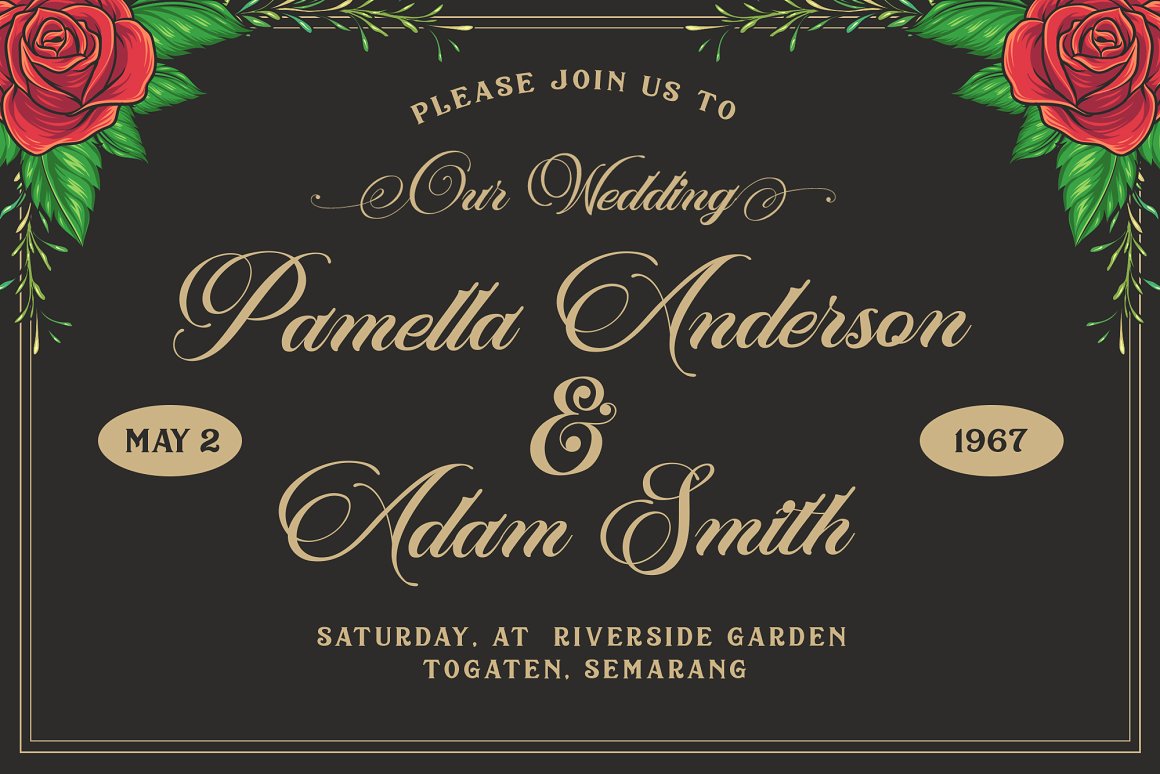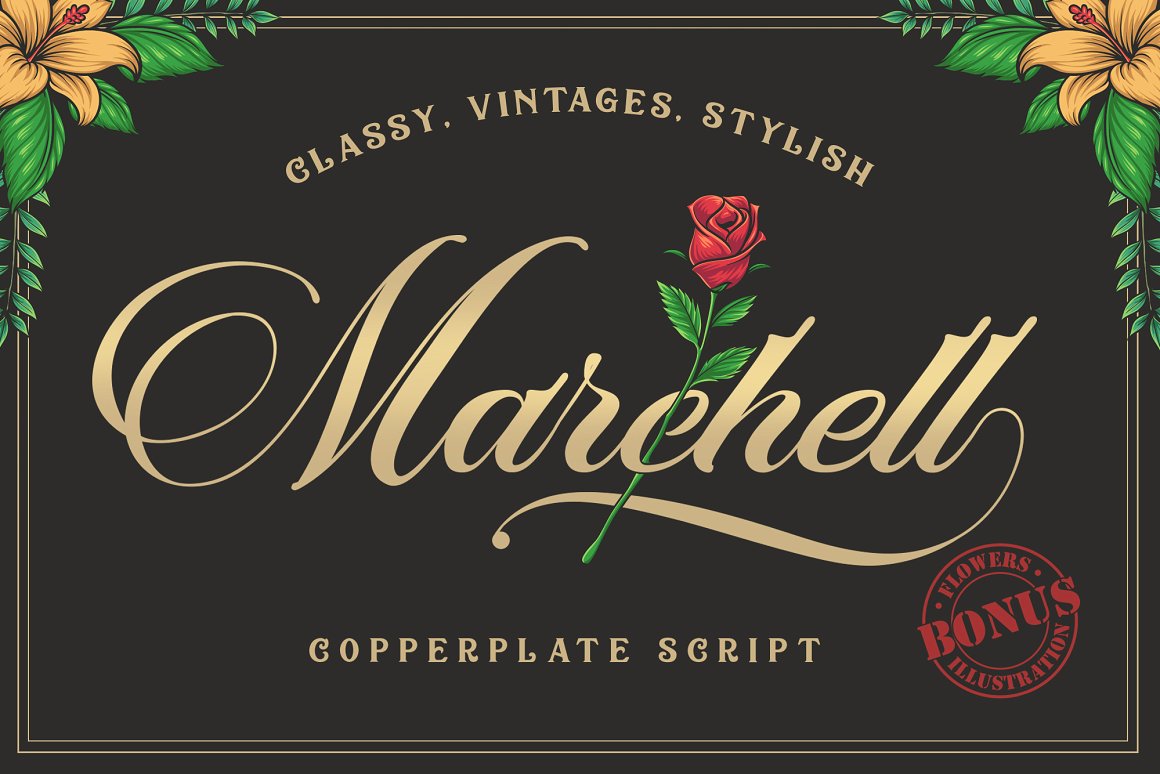
Marchell
Marchell Font
Hello i came back with a new product, this is Marchell Script, this is a copperplate style font that looks classic, vintage and retro but still looks elegant, luxurious and georgeous. Marchell is a little different from some existing fonts, I made a slightly different shape and added an alternative character with a more decorative shape as well I added 35 different swashes that you can use easily, please see this video how to using this font: https://www.youtube.com/watch?v=mwp1yyOko4s&feature=youtu.be